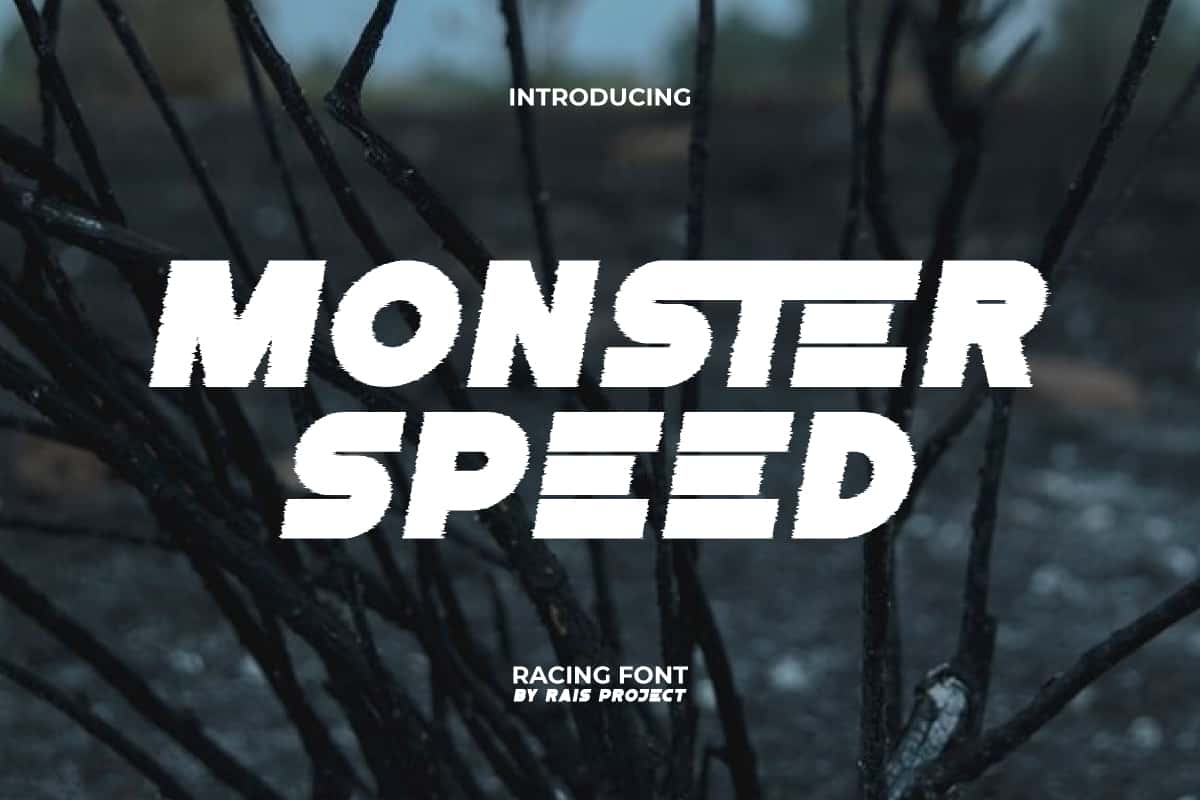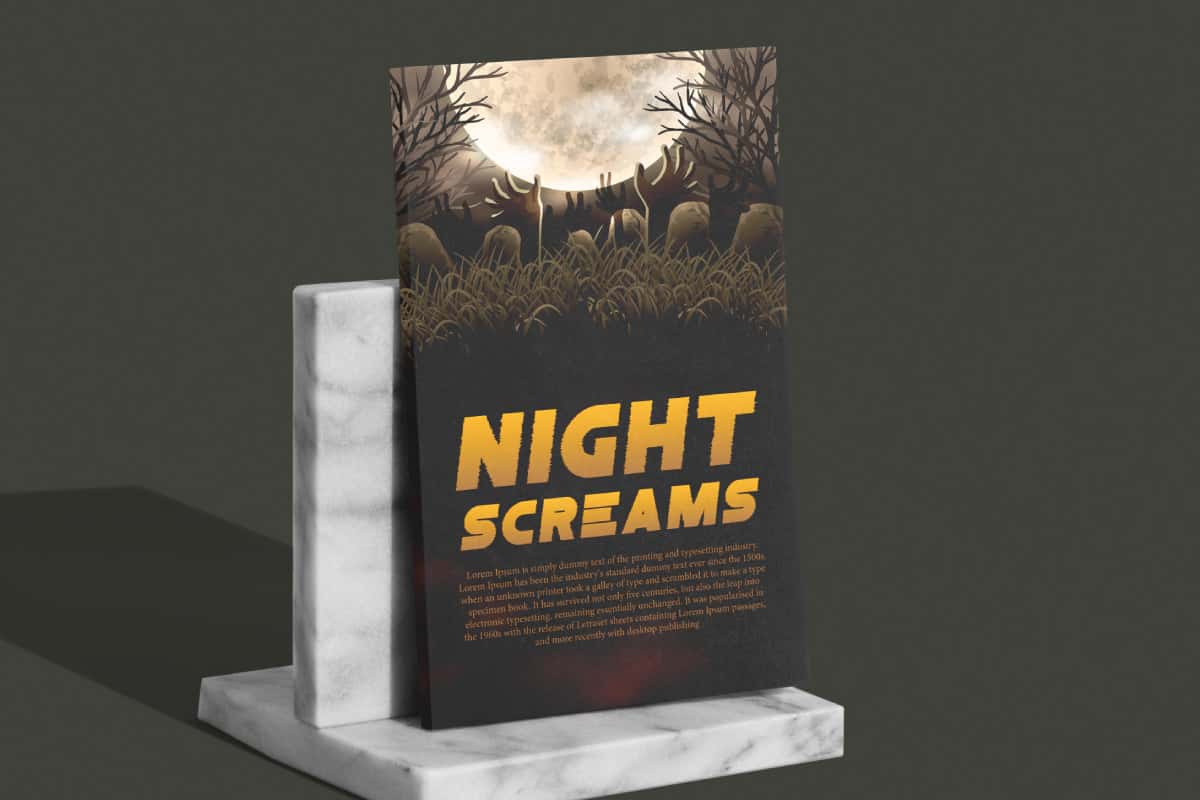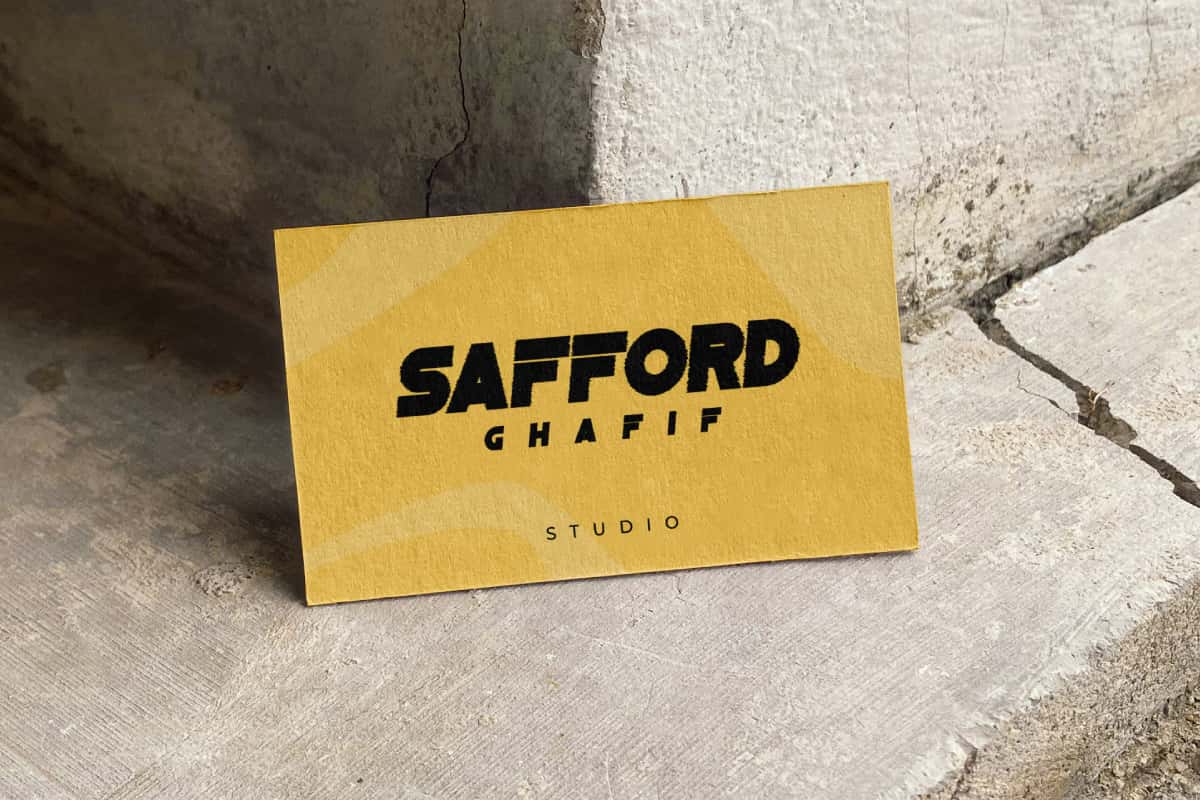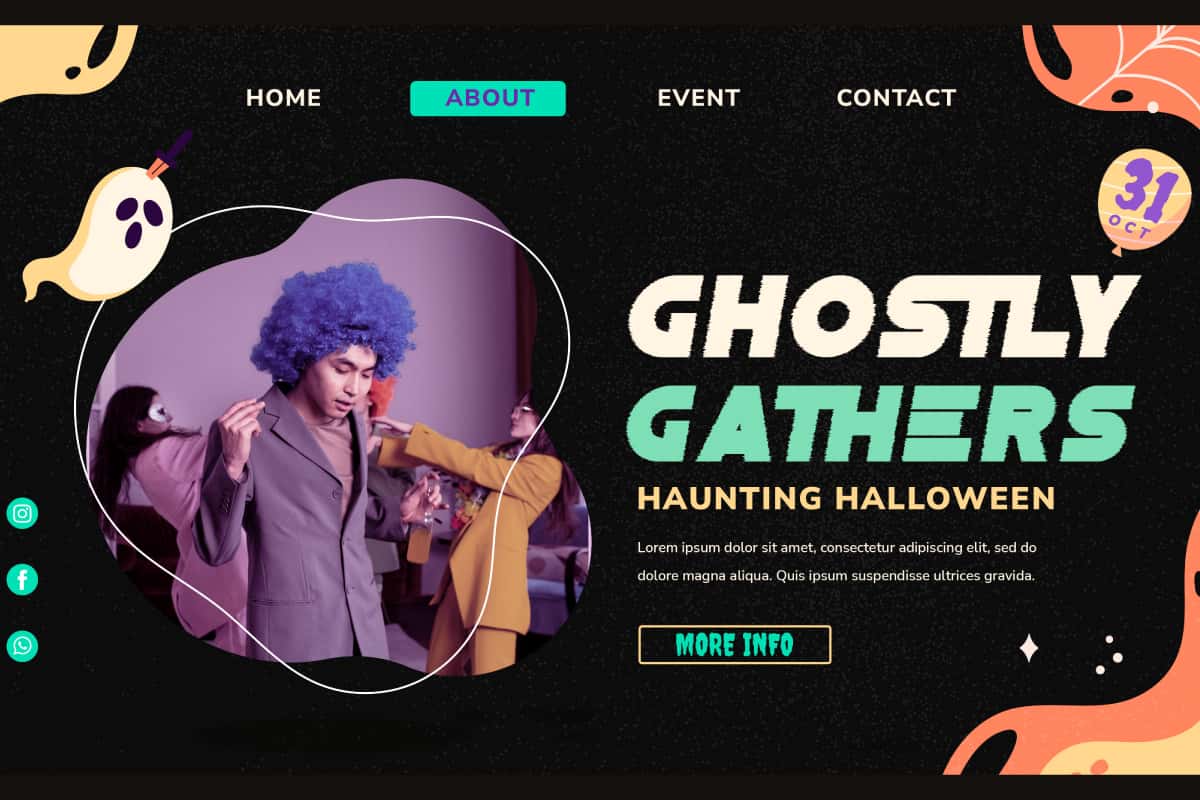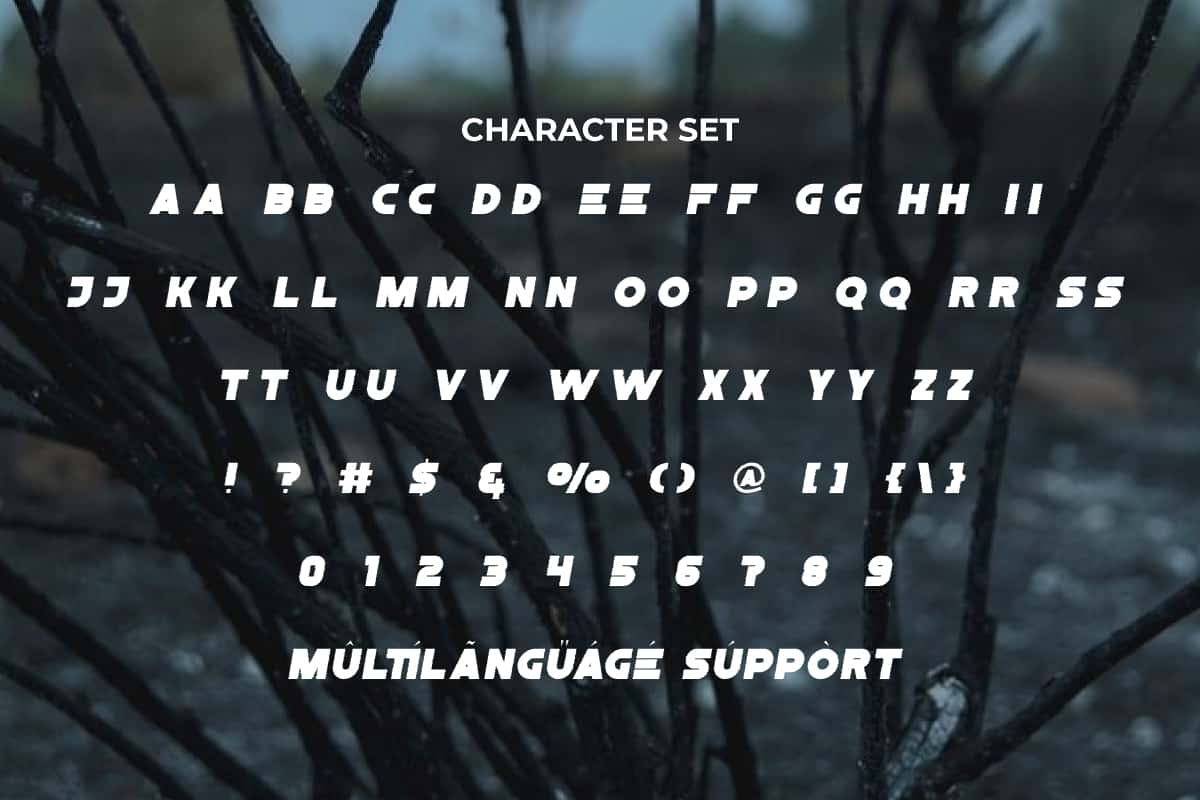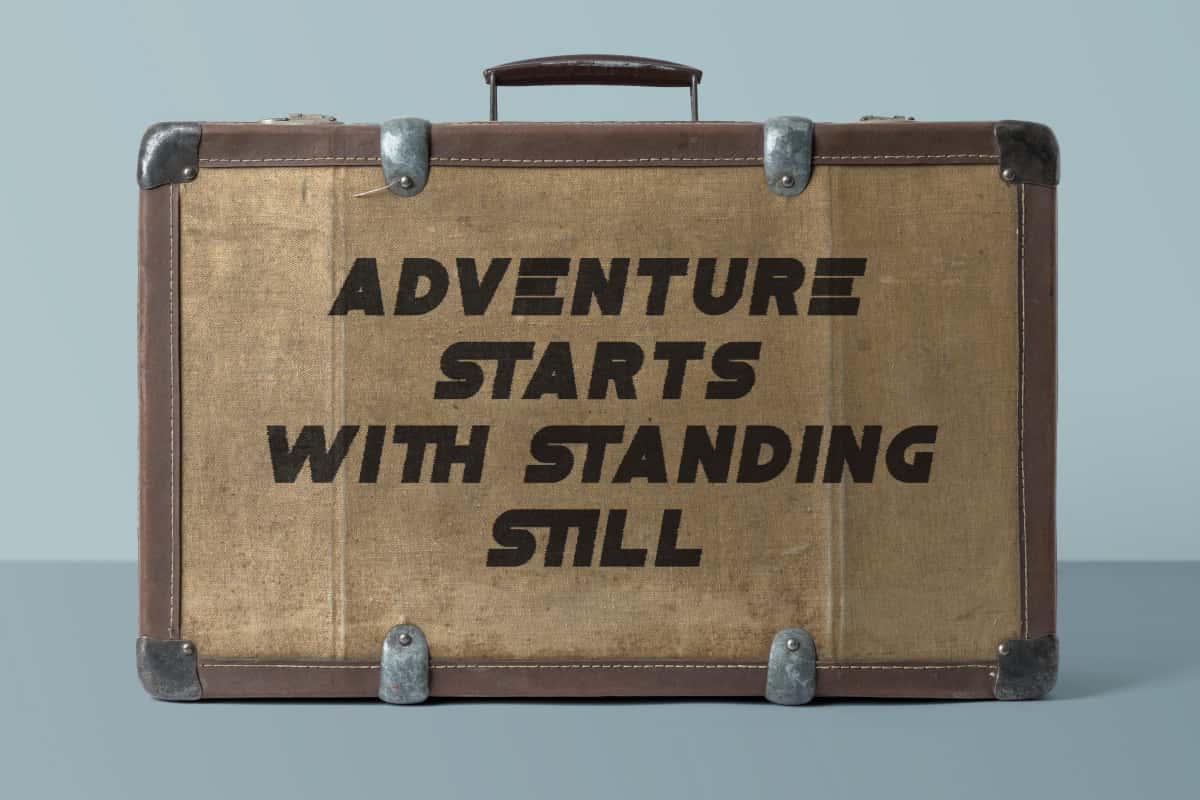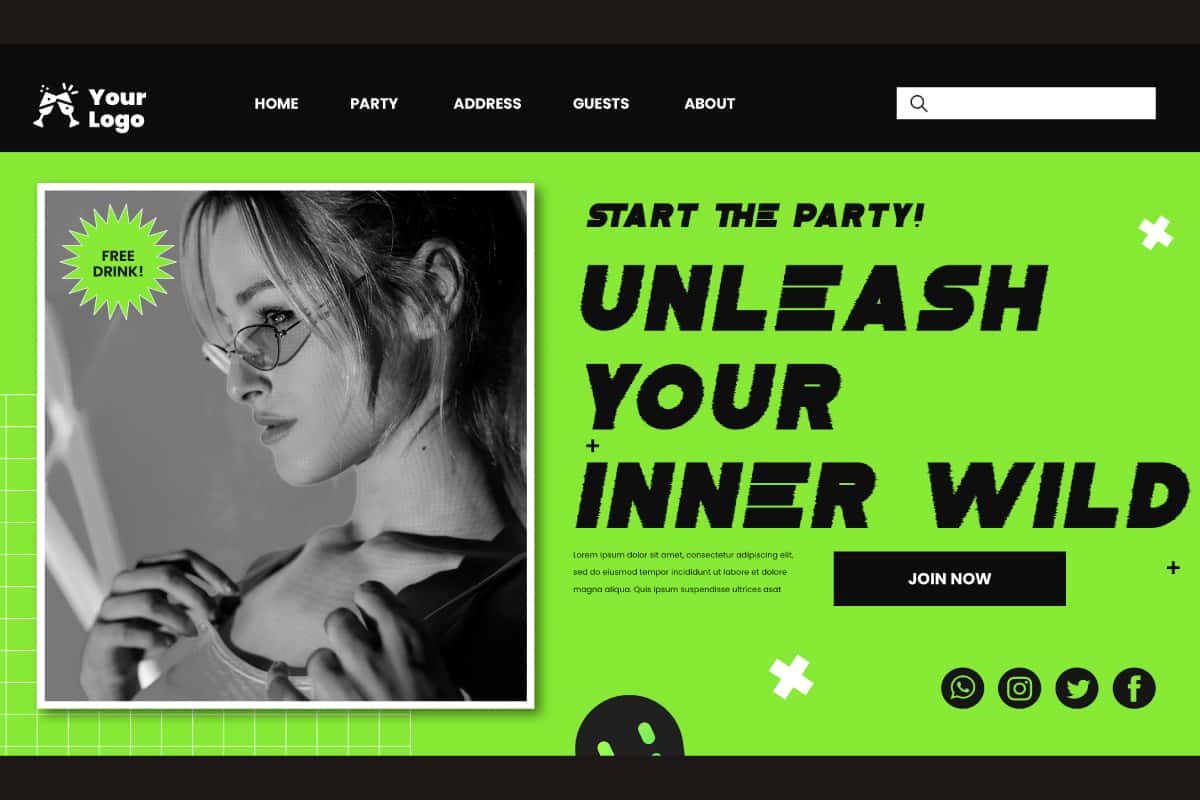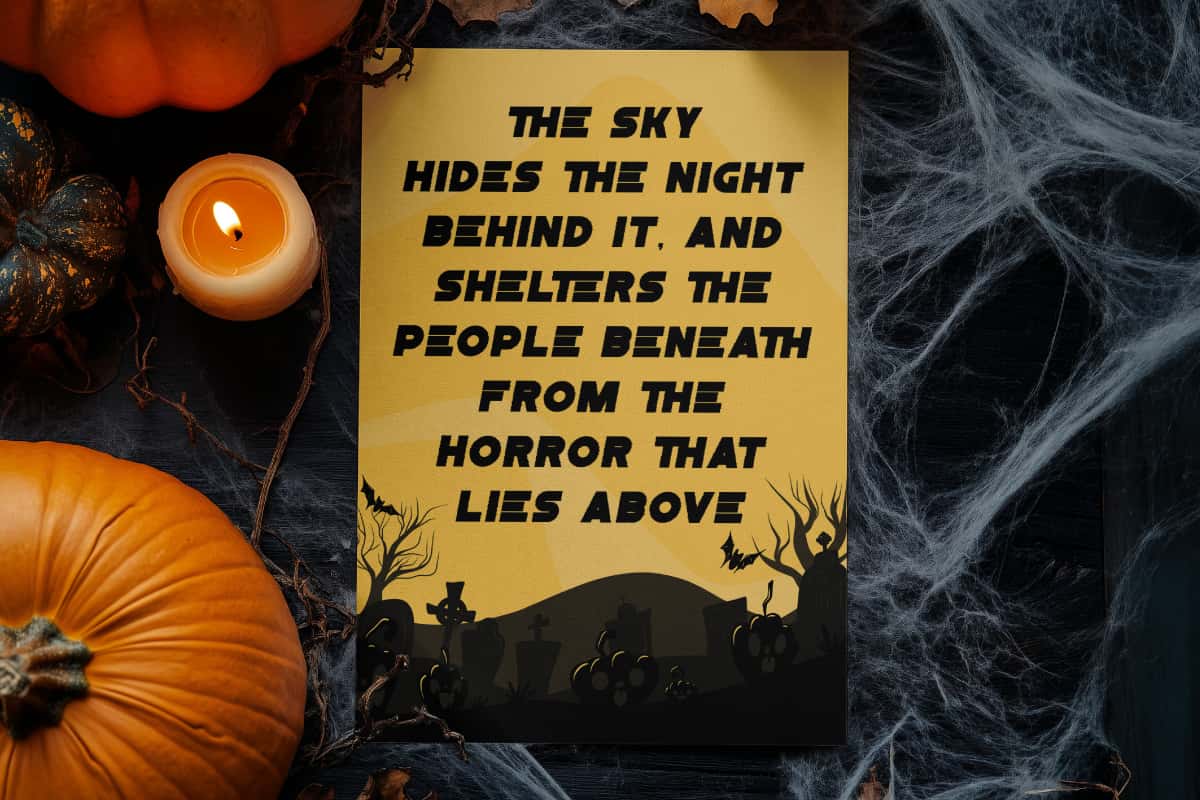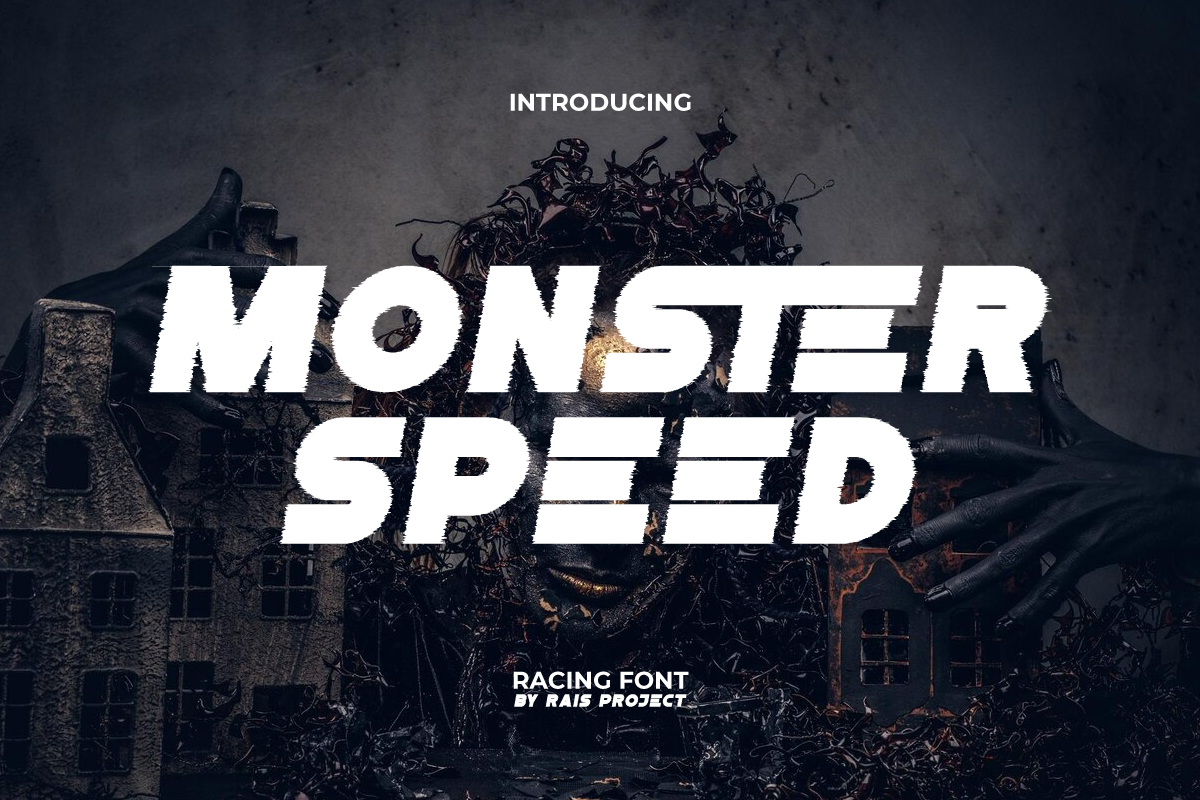
Monster Speed Font is a modern racing display font that can convey a strong bold style, by RaisProject. This display font has a simple style with a touch of mystery that makes it look a bit creepy. It will be great for poster, label, signage, stationery, custom design, product packaging, quotes, brand image, advertisement, invitation, marketing material, website page, and more! You can see the demo font below, input any word you want so you can see what it looks like: